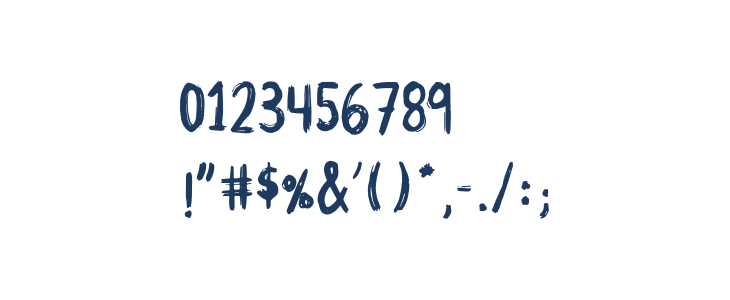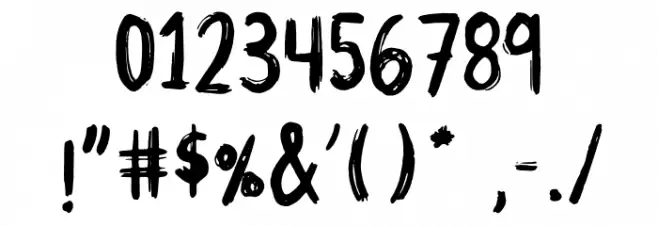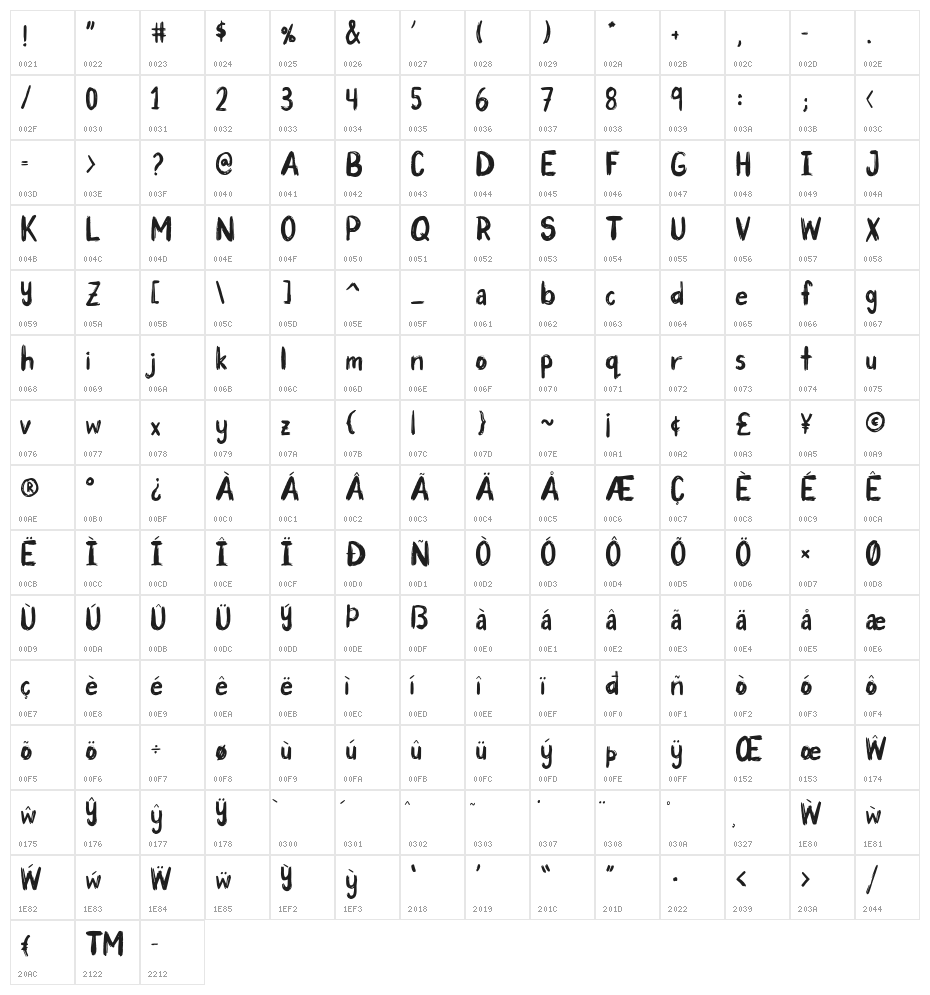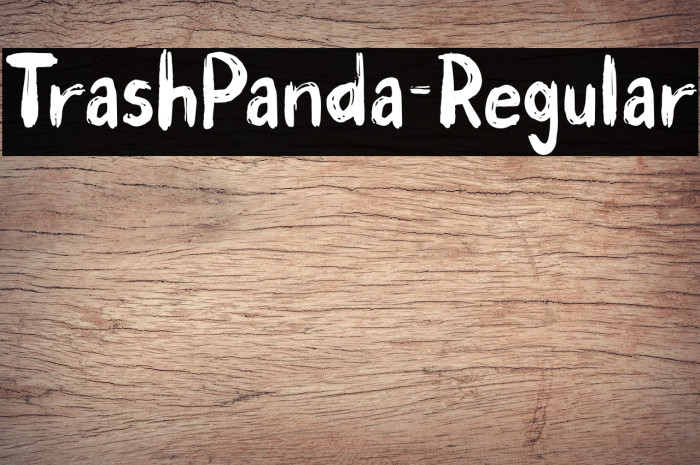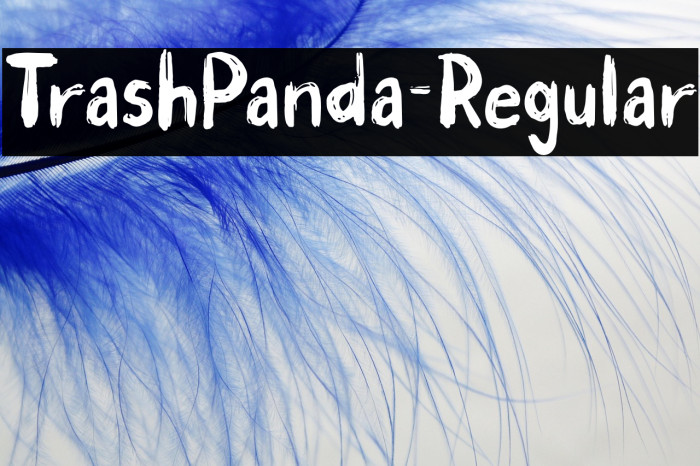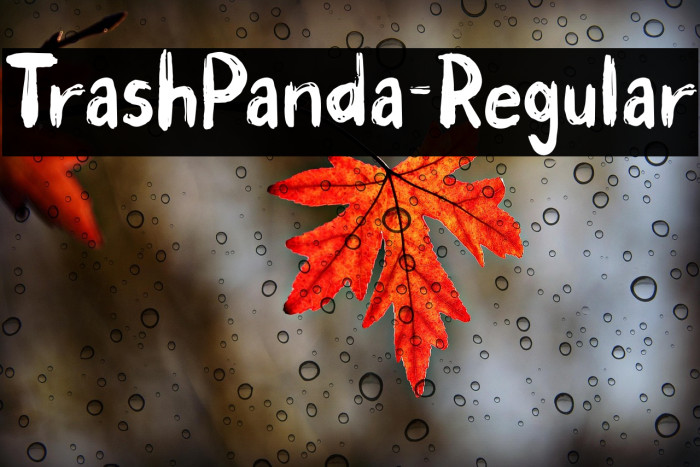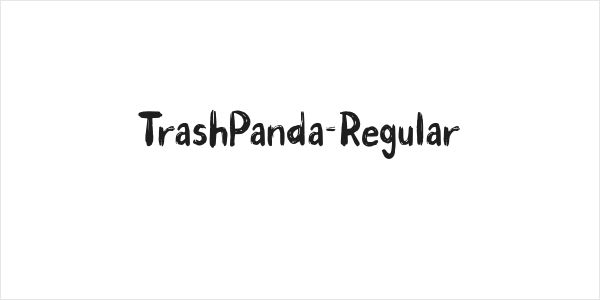
TrashPanda-Regular Font
TrashPanda-Regular Description
This font features a bold, brush-like appearance with a hand-drawn aesthetic. The strokes are uneven and textured, giving it a raw and energetic feel. Each character has a unique, slightly irregular shape, adding to its organic and dynamic style. The uppercase and lowercase letters maintain a consistent visual theme, while the numerals and special characters complement the overall design. This font's artistic flair makes it stand out, perfect for projects that require a touch of creativity and individuality.
Proposed ProjectsIdeal for artistic projects, posters, branding, and any design needing a creative, handmade touch.